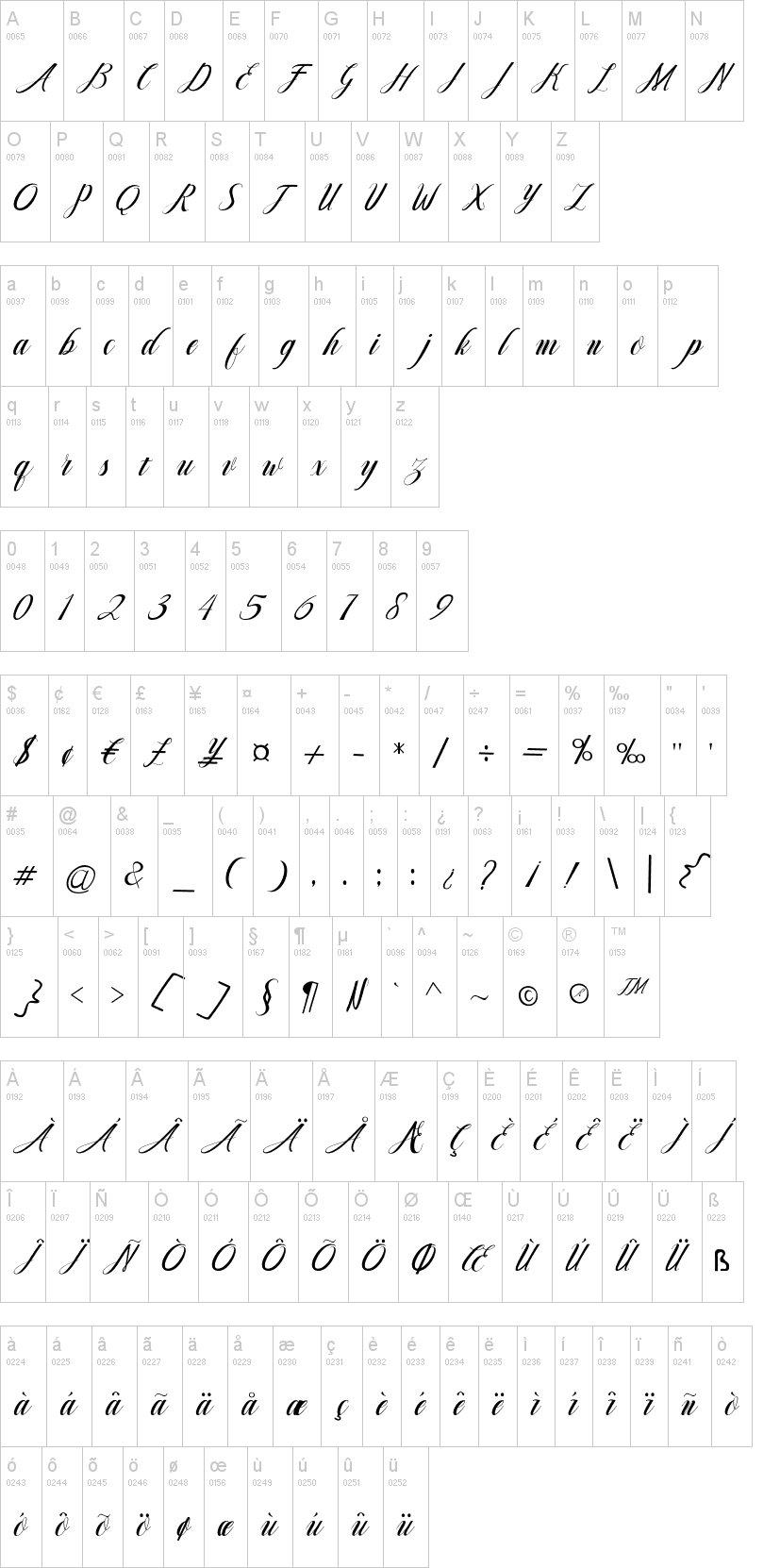
Amelia Font 2
Amelia Font is perfect for feminine branding, elegant wedding invitations, boutique logos, beauty product packaging, romantic greeting cards, fashion blog headers, jewelry branding, personal stationery, lifestyle photography watermarks, spa and wellness materials, cosmetic labels, and any design project requiring a graceful and charming aesthetic.
What makes Amelia Font exciting is its delicate elegance that embodies femininity and timeless grace. The font's refined letterforms strike a perfect balance between sophistication and approachability, making it ideal for brands targeting audiences who appreciate beauty and refinement. Its versatile character adapts beautifully to both formal and casual applications, offering designers a reliable tool for creating visually appealing content that resonates with style-conscious audiences.
The Amelia Font family typically includes uppercase and lowercase characters, numerals, punctuation marks, and elegant stylistic variations that enhance its graceful appearance.